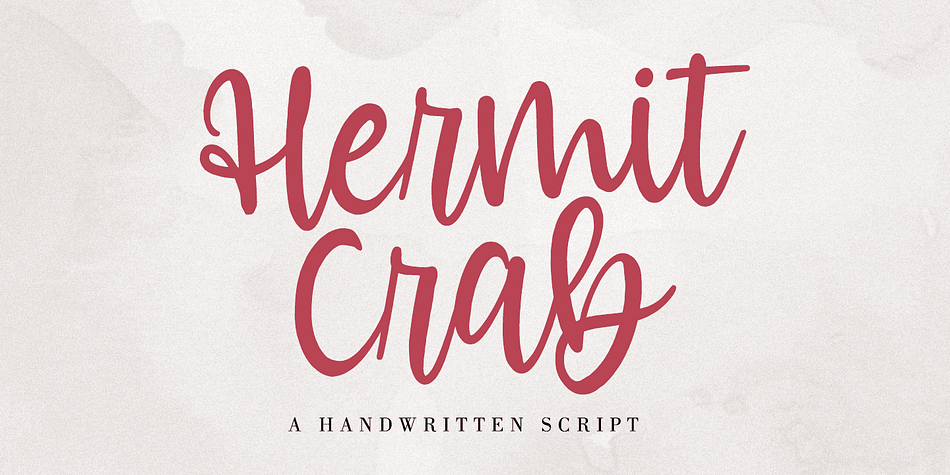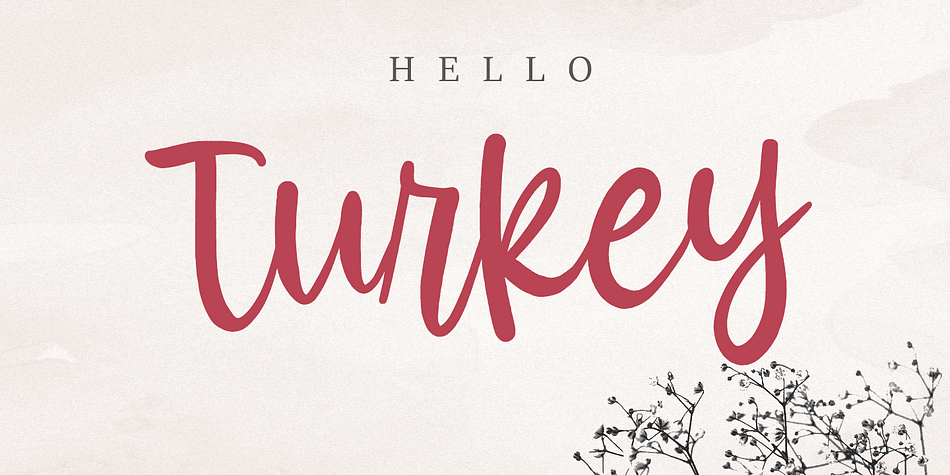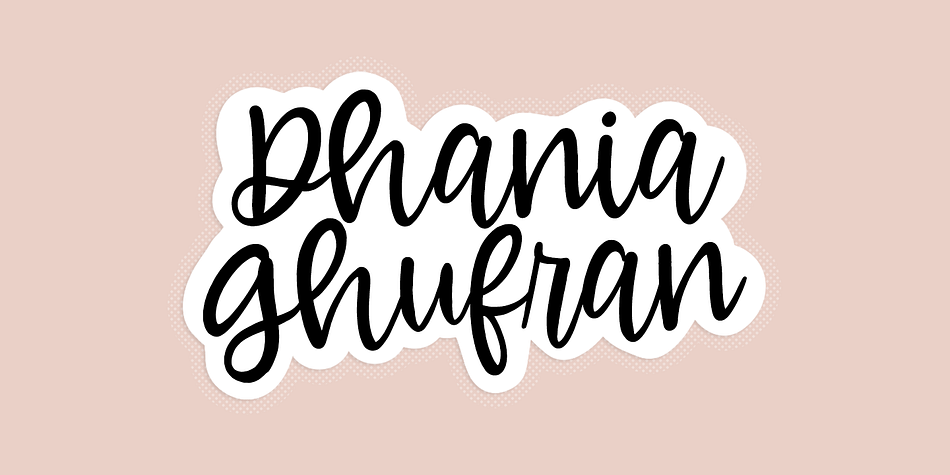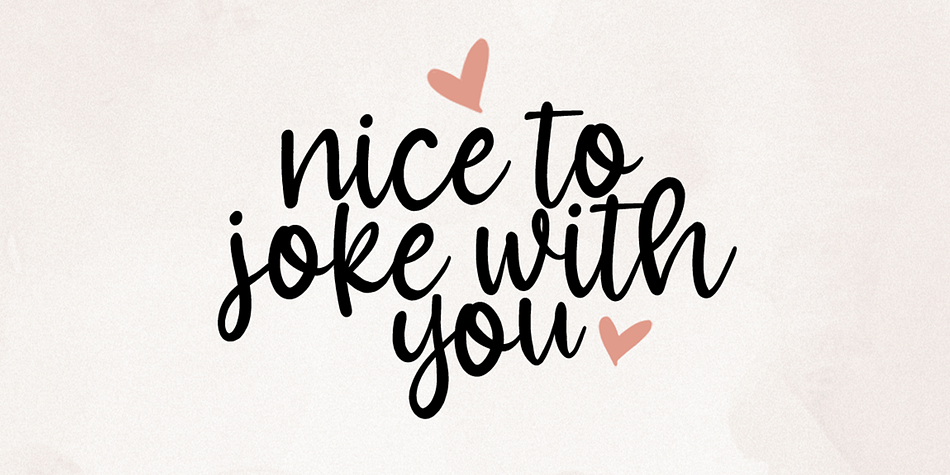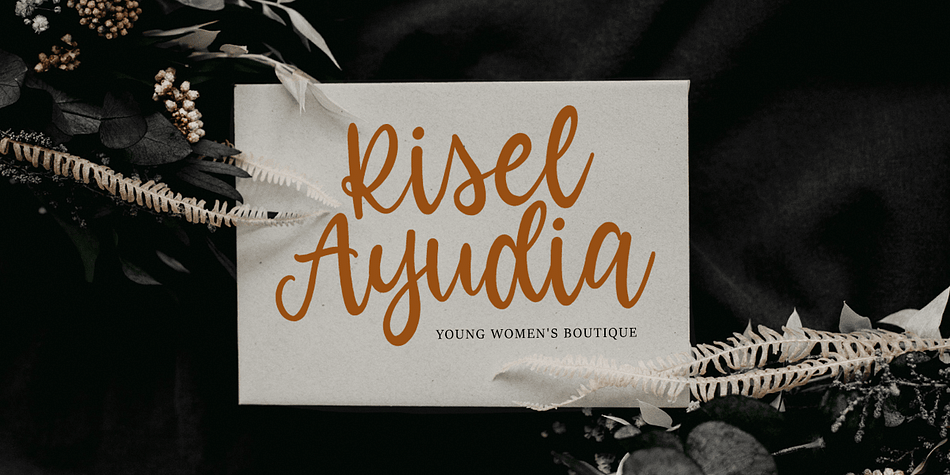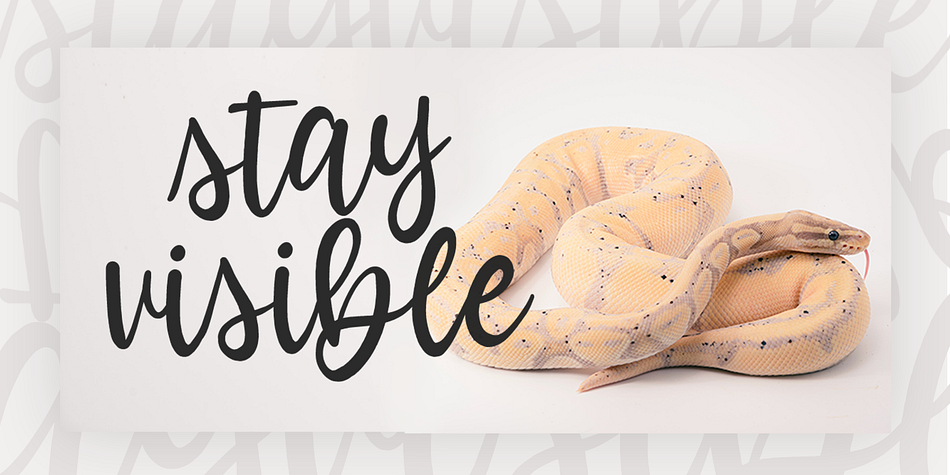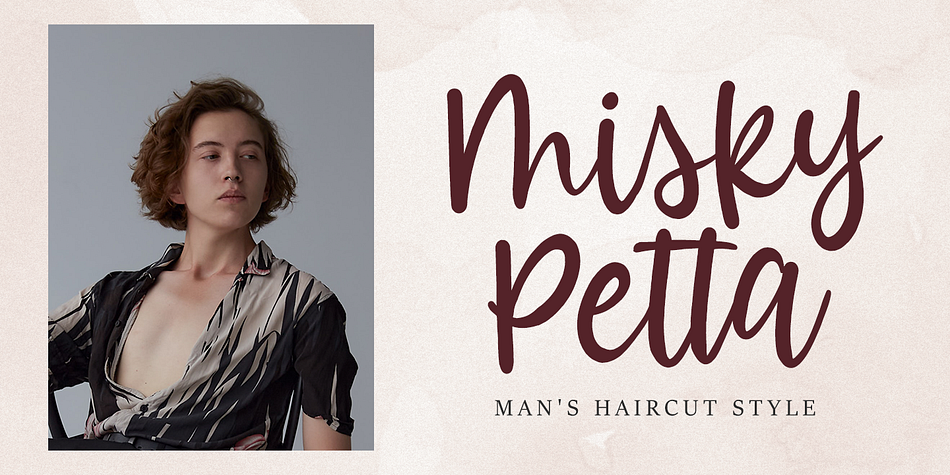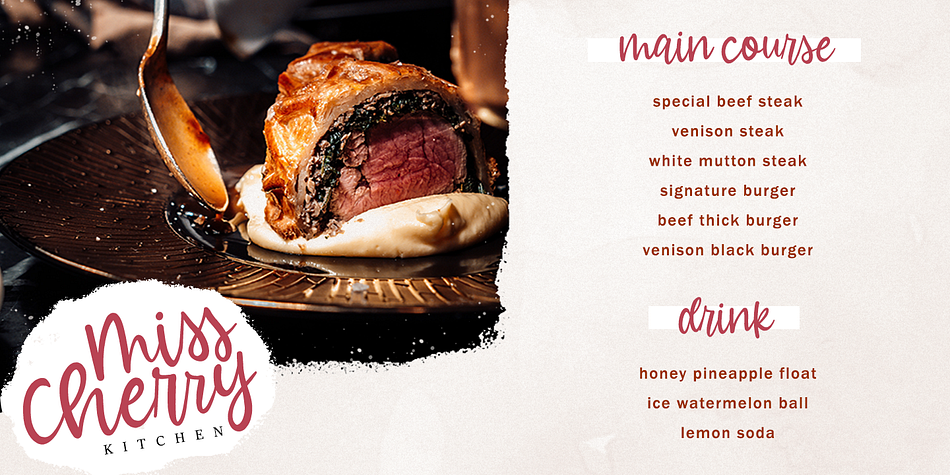
Hermit Crab
Hermit Crab is a modern calligraphy and script font published by Dhan Studio.
Hermit Crab is a beautiful modern handwritten font specially designed for your current and future design needs.
Styles Modern Calligraphy, Script